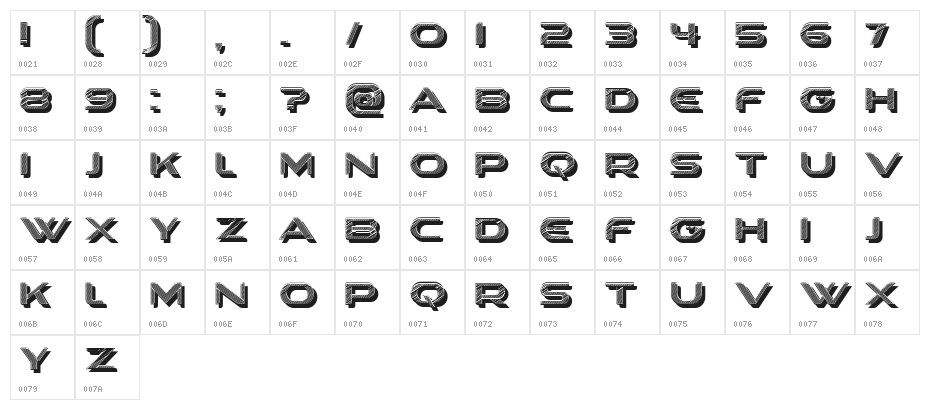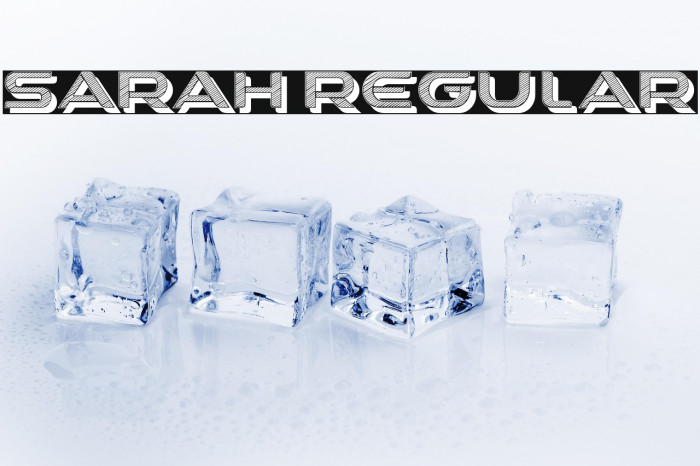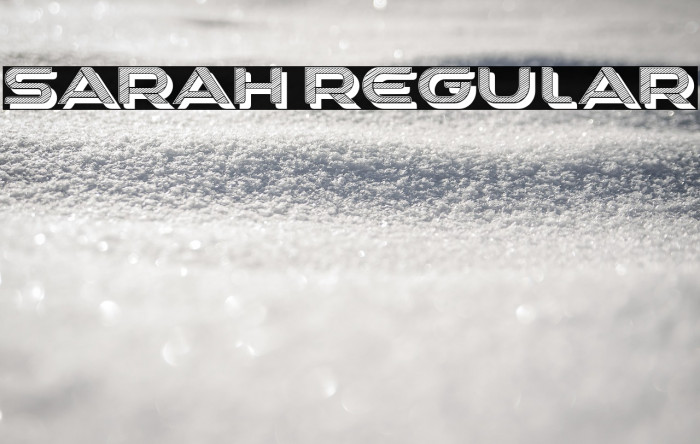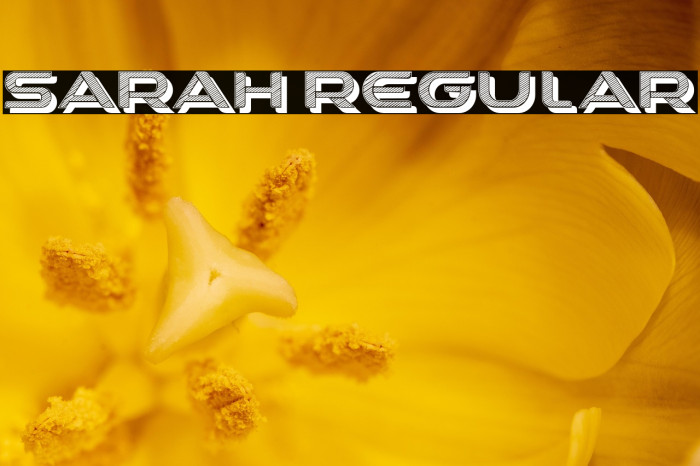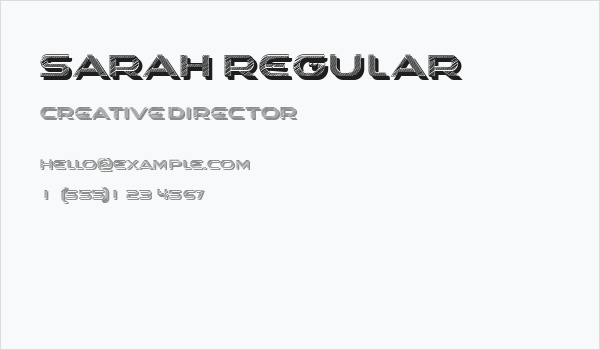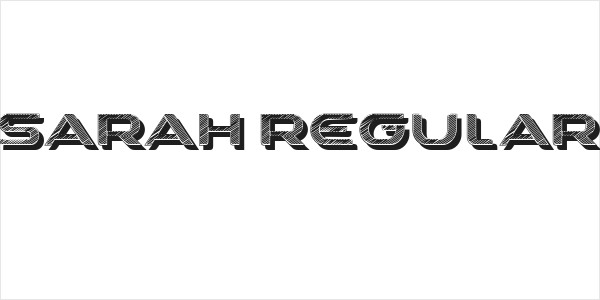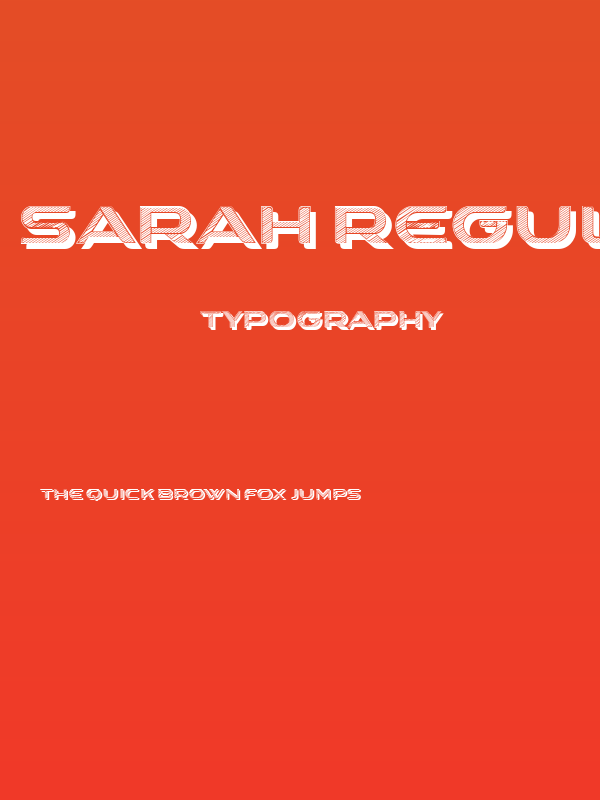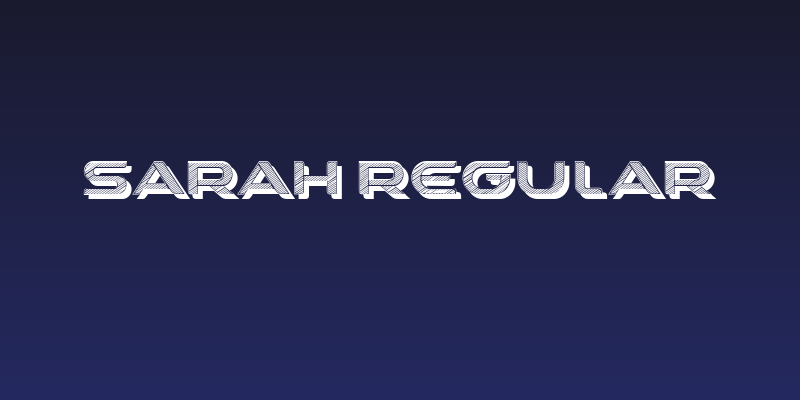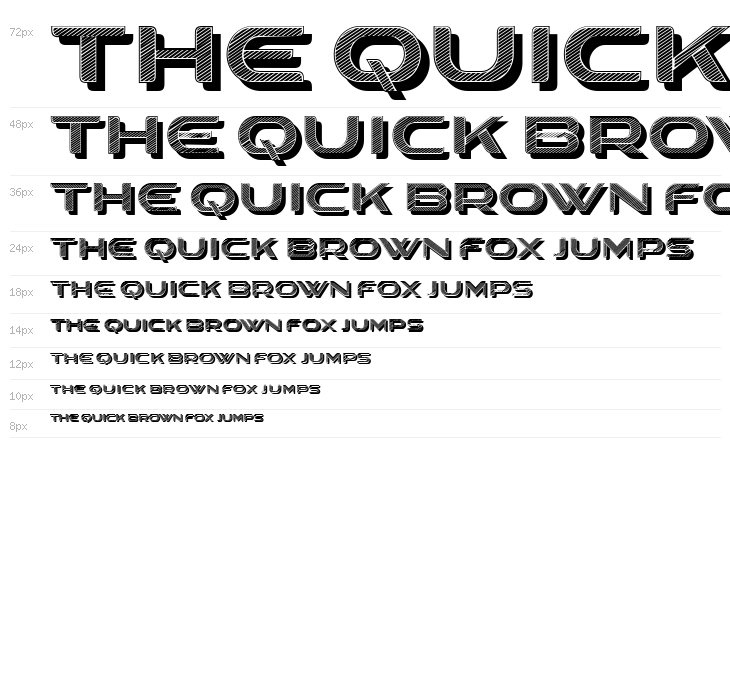
Sarah Regular Font
Sarah Regular Description
This font features a bold, decorative style with a distinct 3D effect created by diagonal lines running through each character. The uppercase letters are strong and impactful, making them ideal for attention-grabbing headlines. The lowercase letters maintain the same stylistic elements, ensuring consistency across different text cases. The numbers and special characters are equally bold and decorative, providing a cohesive look throughout. The font's unique design is perfect for projects that require a modern and edgy aesthetic.
| Proposed Projects | Ideal for posters, logos, and branding materials that require a modern and striking appearance. |